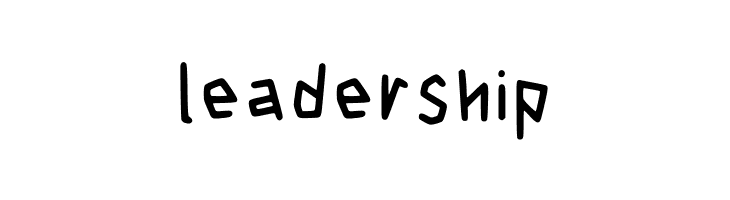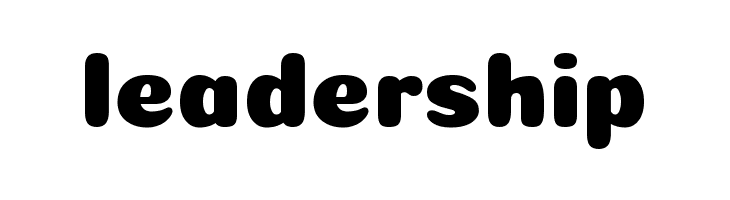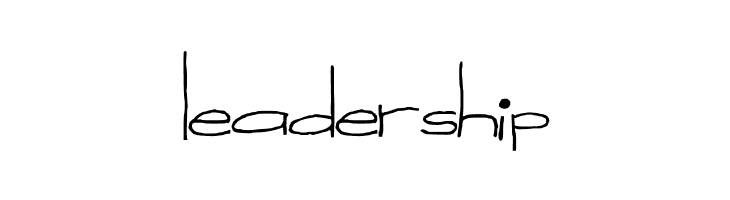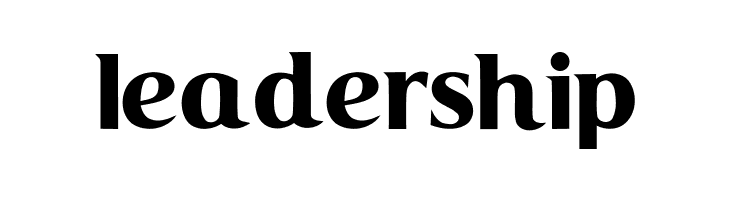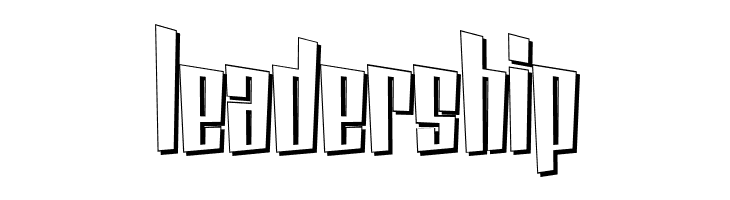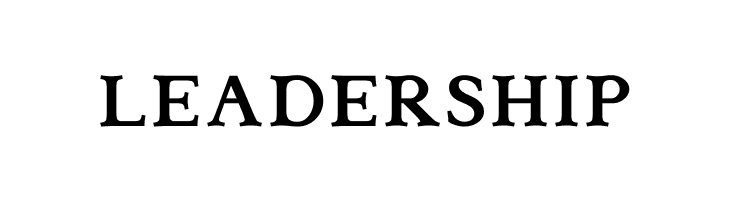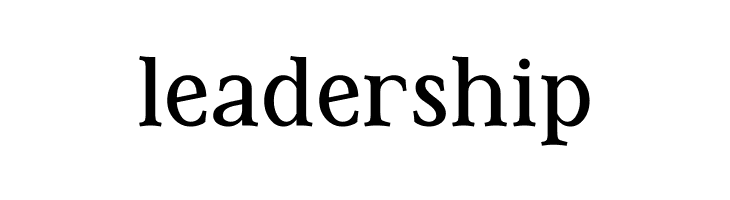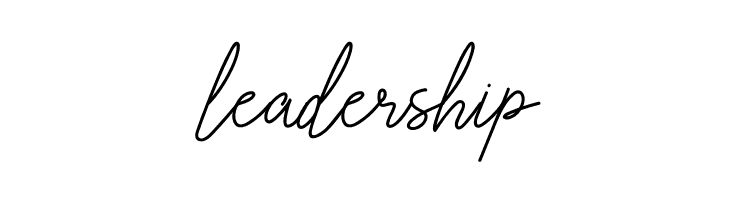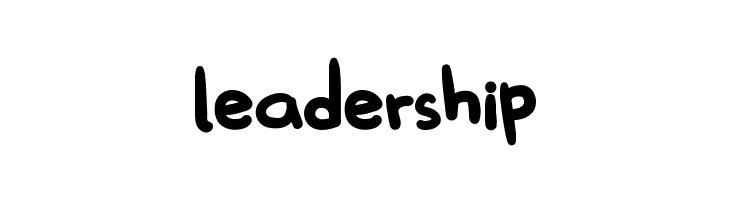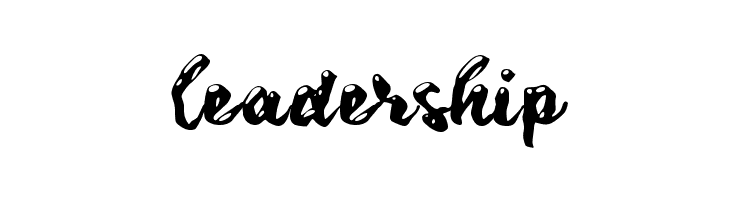
A fluid, cursive script font with elegant, handwritten characteristics.
A bold, expressive script font with a dynamic handwritten style.
A bold, playful font with exaggerated curves and a whimsical style.
A modern, condensed font with tall, narrow letterforms and consistent stroke width.
A playful, hand-drawn font with irregular strokes and a casual style.
A futuristic, geometric font with bold outlines and rounded edges.
A modern, geometric font with a three-dimensional shadow effect.
A classic serif font with elegant curves and balanced readability.
A classic serif font with elegant curves and balanced proportions.
A modern, tubular font with smooth curves and a futuristic design.
A futuristic, tubular font with a bold, geometric design.
An artistic and decorative font with coiled, medieval-inspired elements.
A modern, geometric font with a continuous line style, perfect for a futuristic look.
A futuristic and geometric font with clean lines and a modern aesthetic.
A futuristic, continuous line font with a modern geometric style.
A futuristic, geometric font with a coil-like, continuous line design.
A bold, condensed font with geometric shapes and sharp angles for a modern look.
A bold, three-dimensional shadow font with a modern, geometric style.
A classic serif font with bold uppercase and harmonious lowercase letters.
A playful, rounded font with bold, smooth curves.
A playful, rounded font with bold strokes and a friendly vibe.
A bold, rounded font with a playful and friendly style.
A playful, rounded font with bold, uniform strokes and smooth curves.
A bold, rounded font with a playful and modern style.
A bold, rounded font with a playful, modern aesthetic.
A playful, bold script font with a melted chocolate appearance.
A playful, bold font with rounded, thick strokes and a whimsical touch.
A bold, modern sans-serif font with clean lines and a slightly condensed style.
A modern, light sans-serif font with a clean and minimalistic design.
A modern, clean typeface with balanced structure and smooth curves.